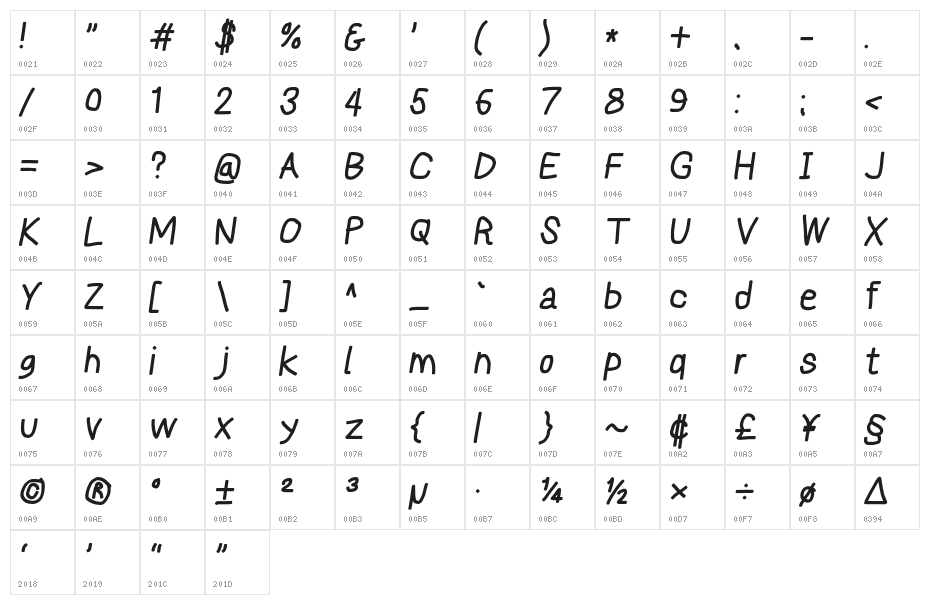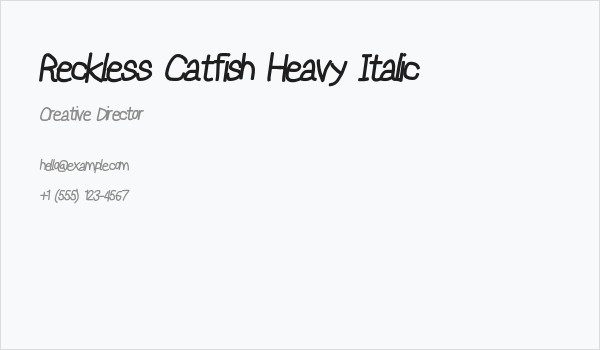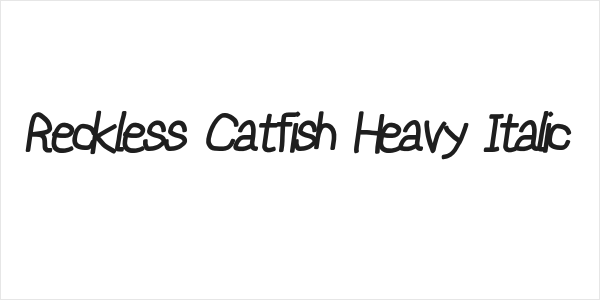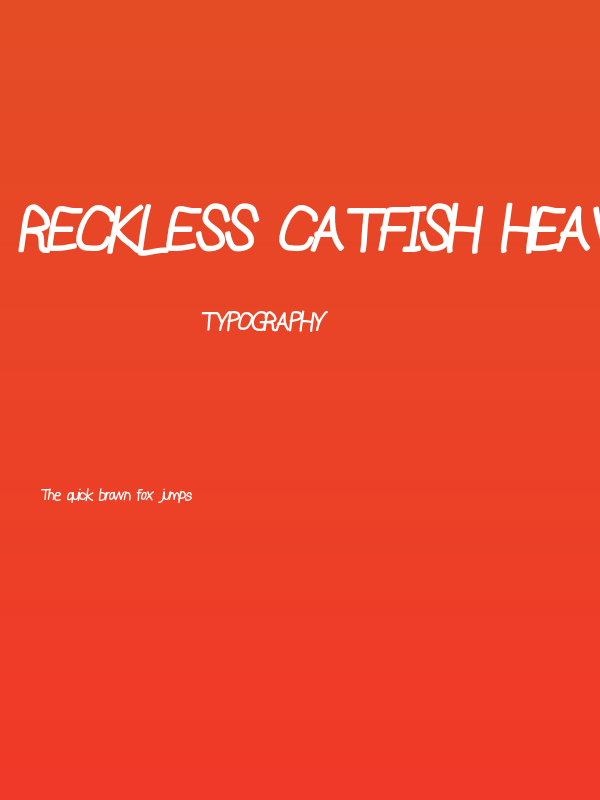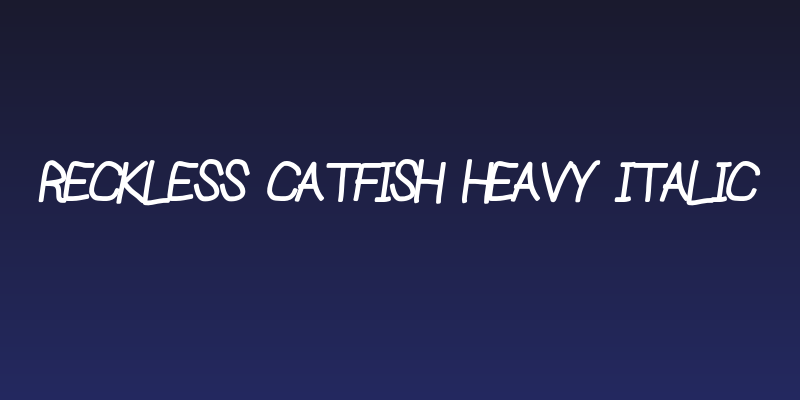
Reckless Catfish Heavy Italic Font
Reckless Catfish Heavy Italic Description
This font features a bold and expressive style with a heavy italic slant, giving it a dynamic and energetic appearance. The characters are handwritten with a playful and casual flair, making it ideal for projects that require a personal touch. The strokes are thick and consistent, providing a strong visual impact. The uppercase and lowercase letters are well-balanced, and the numerals are clear and legible. Special characters are included, maintaining the font's overall aesthetic. The font's unique style makes it suitable for creative and informal applications.
| Proposed Projects | Ideal for posters, greeting cards, social media graphics, and branding projects that require a personal and informal touch. |